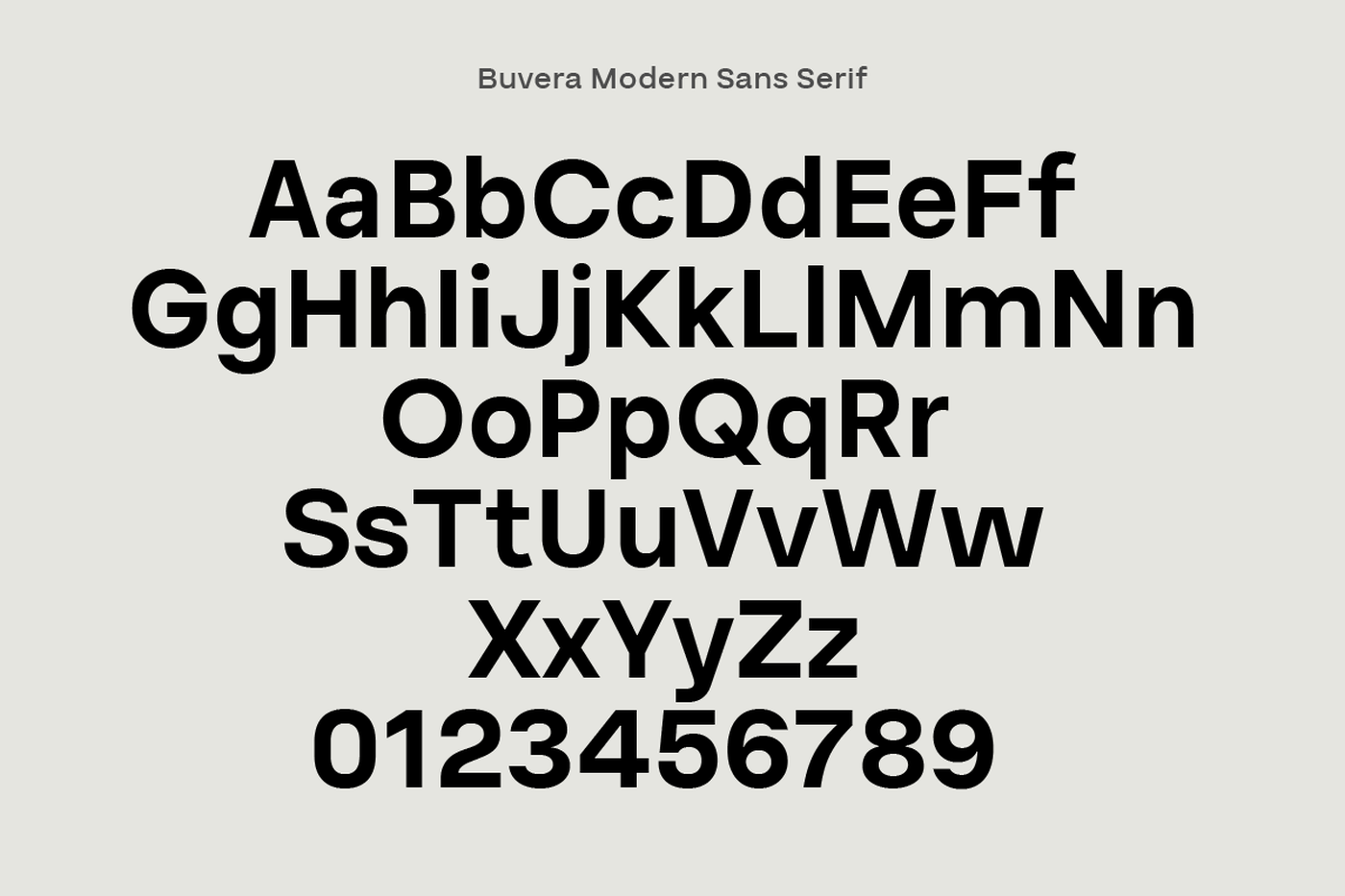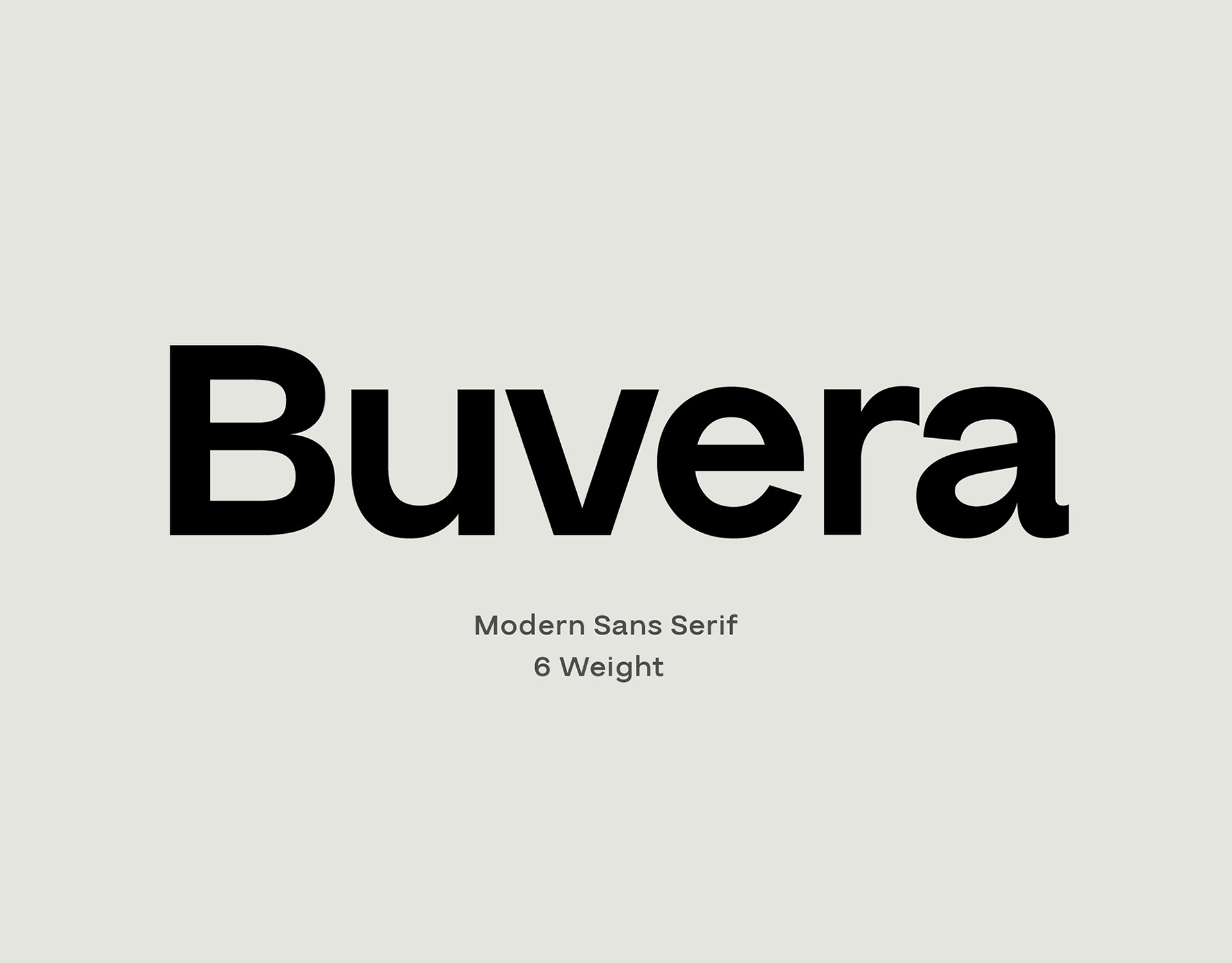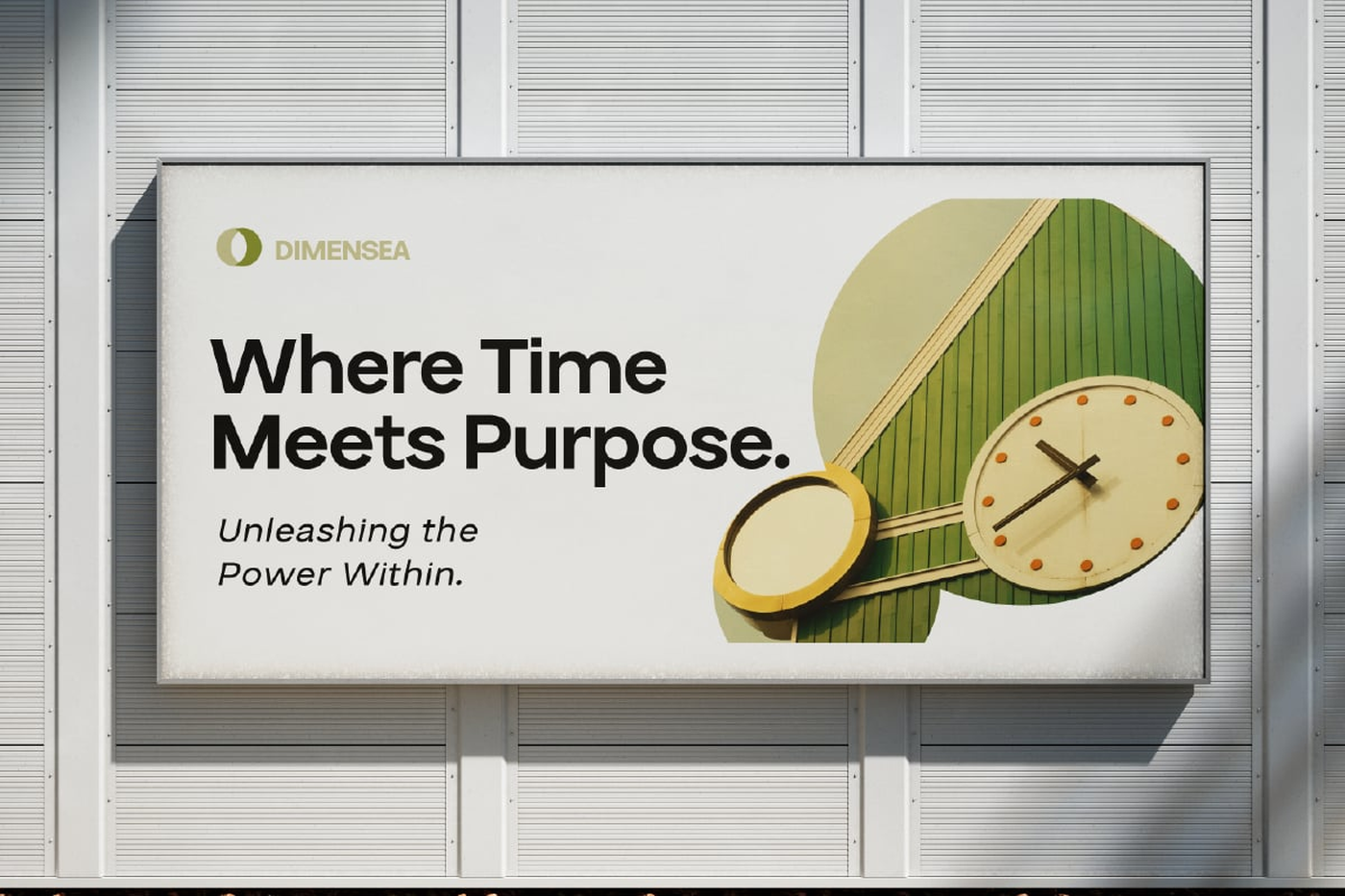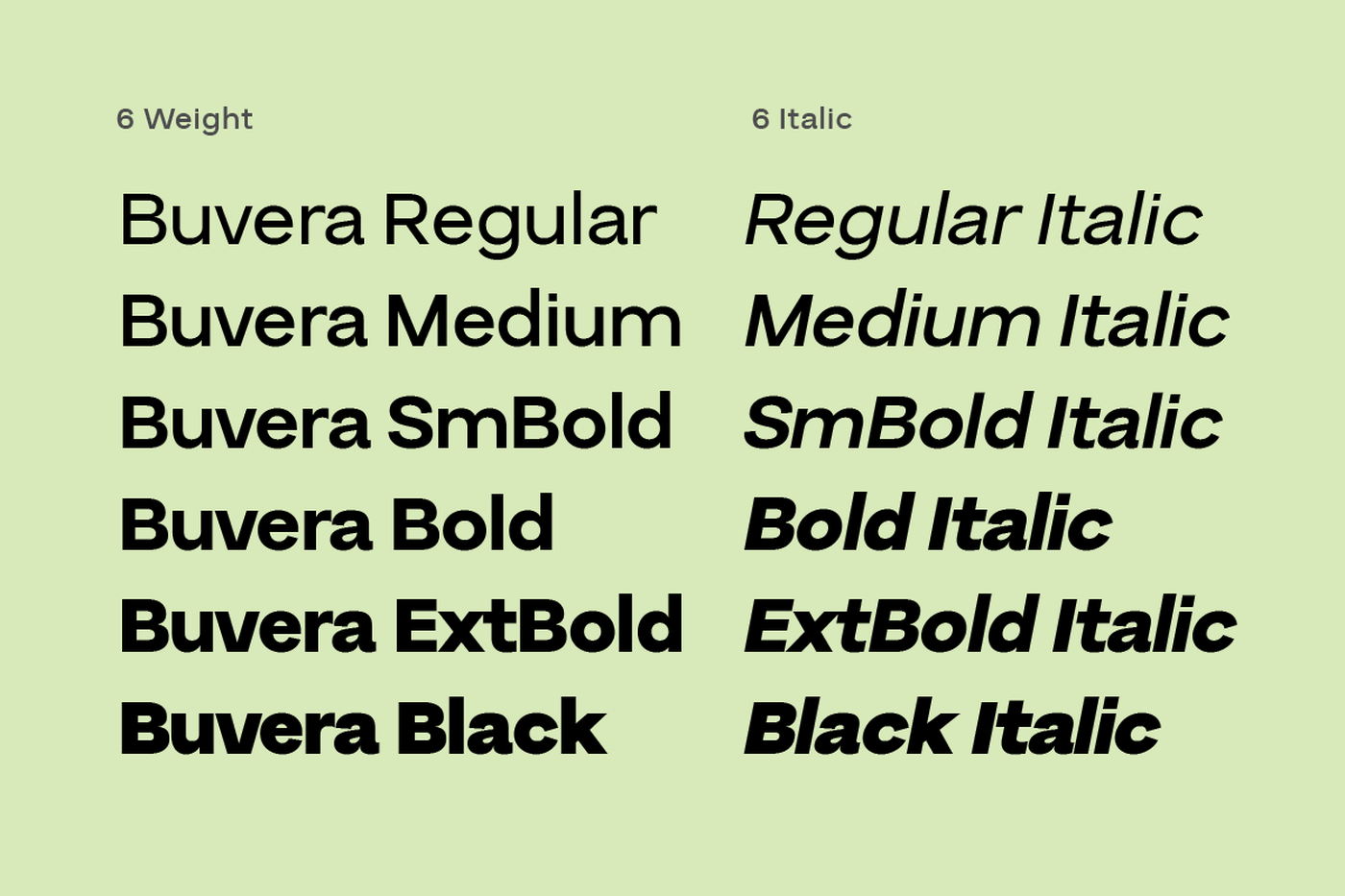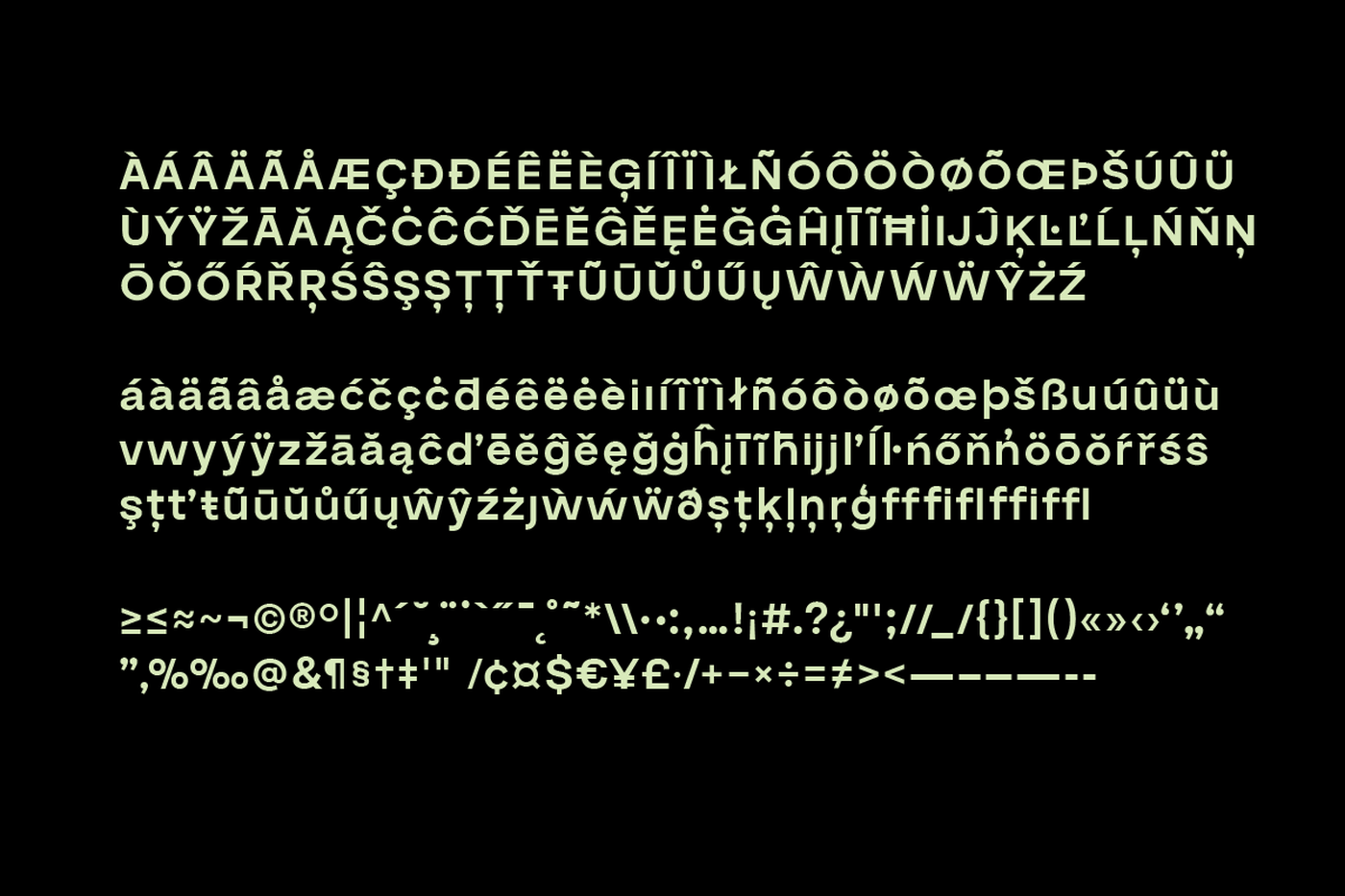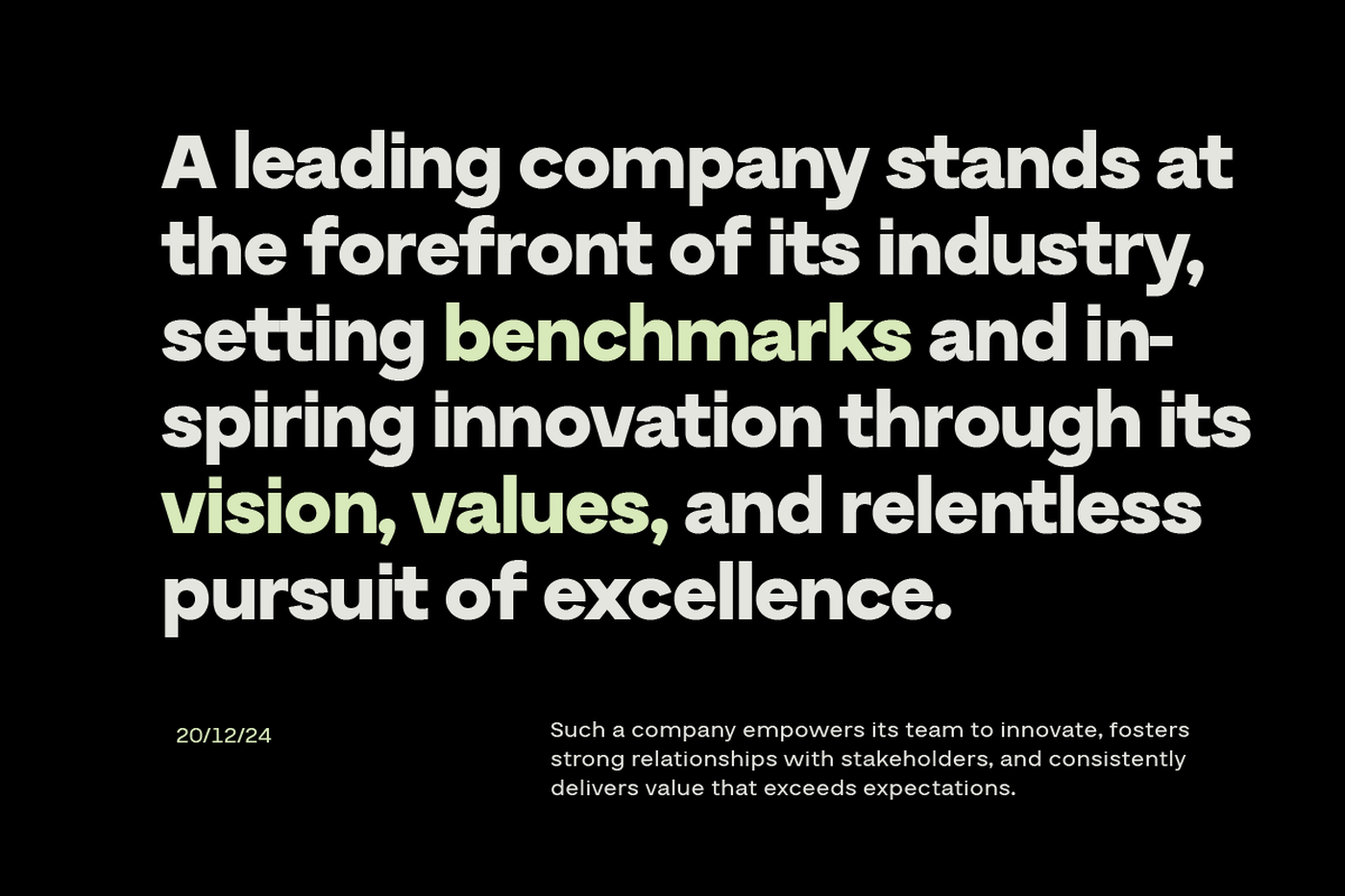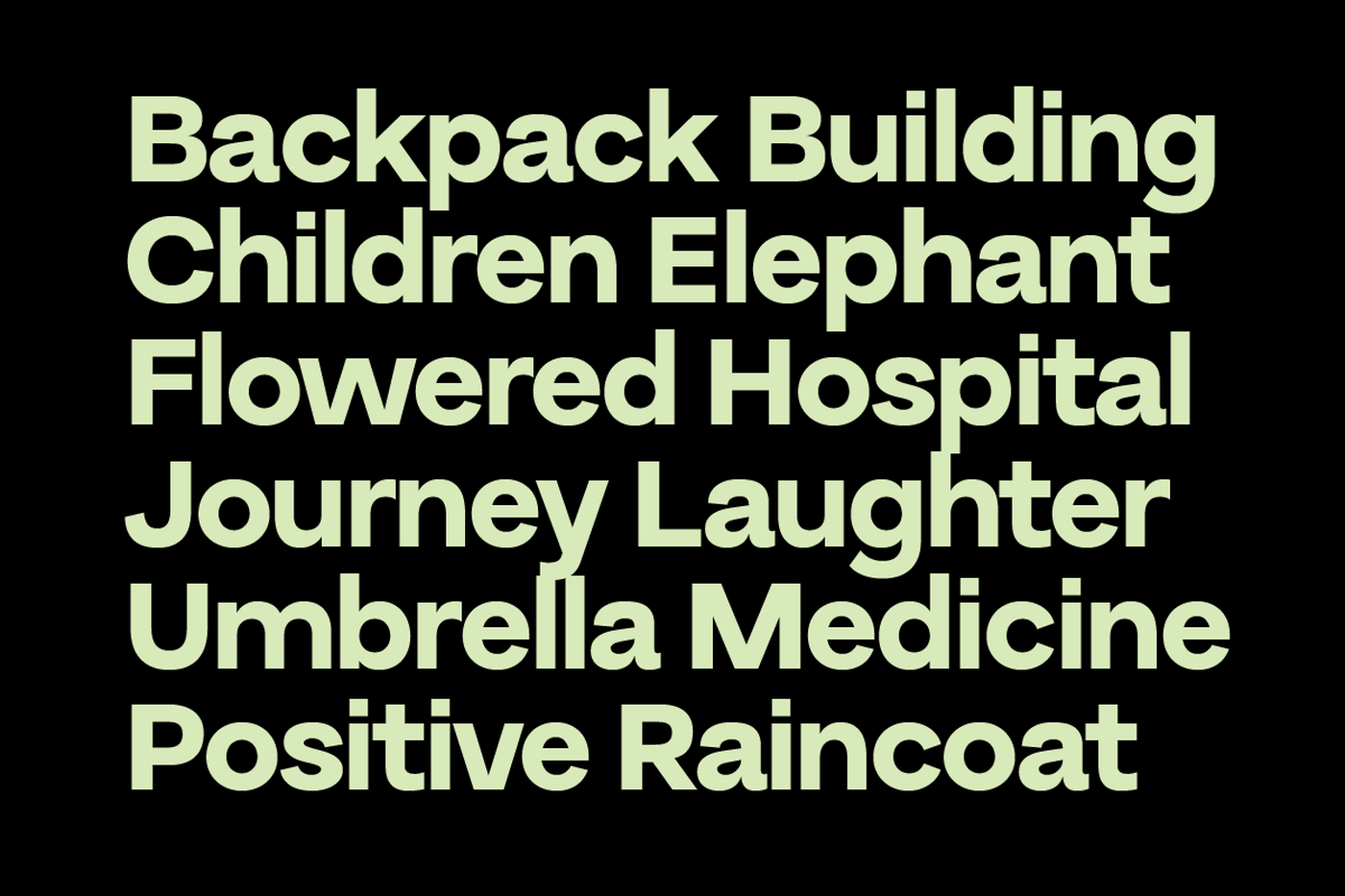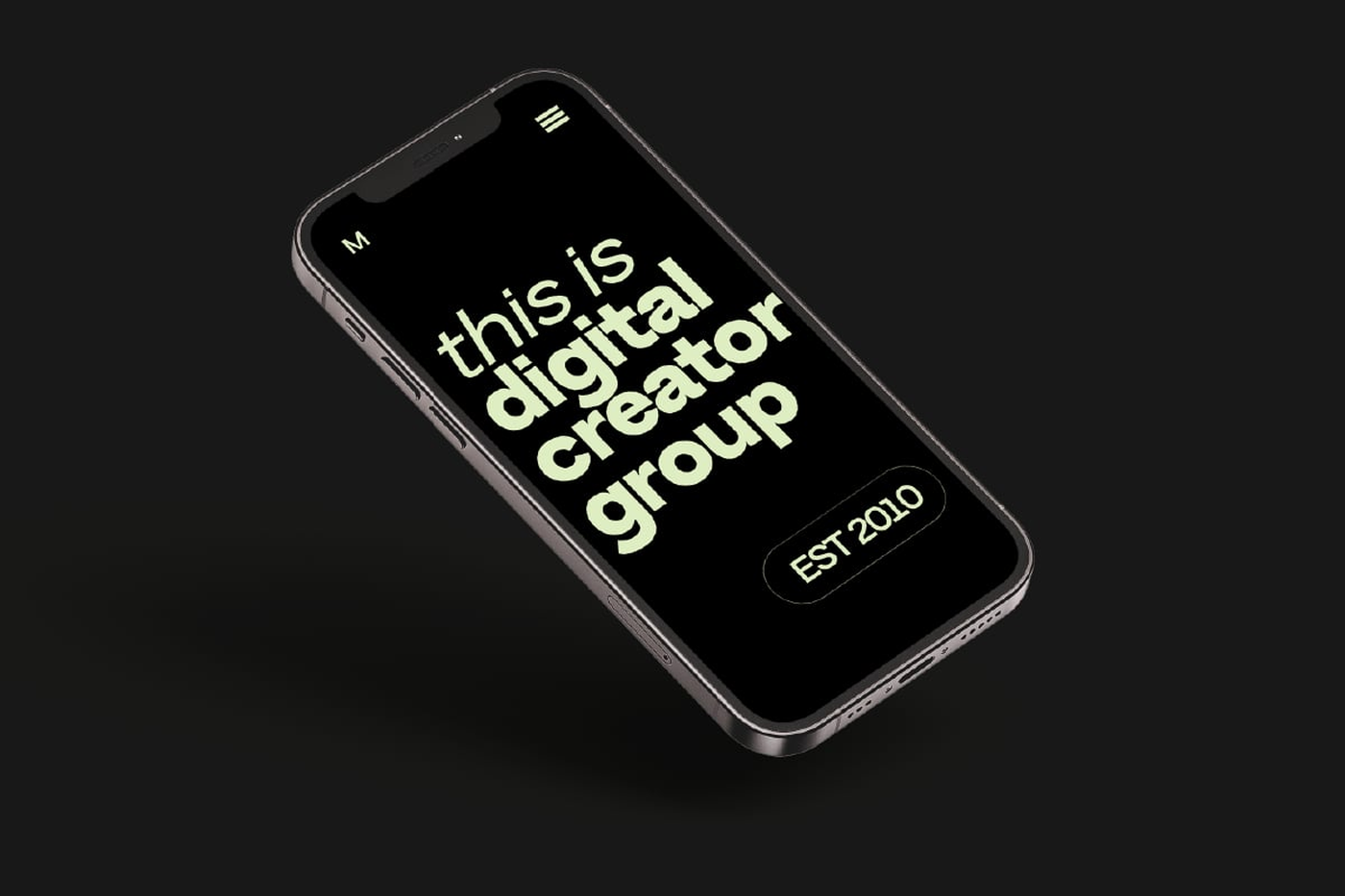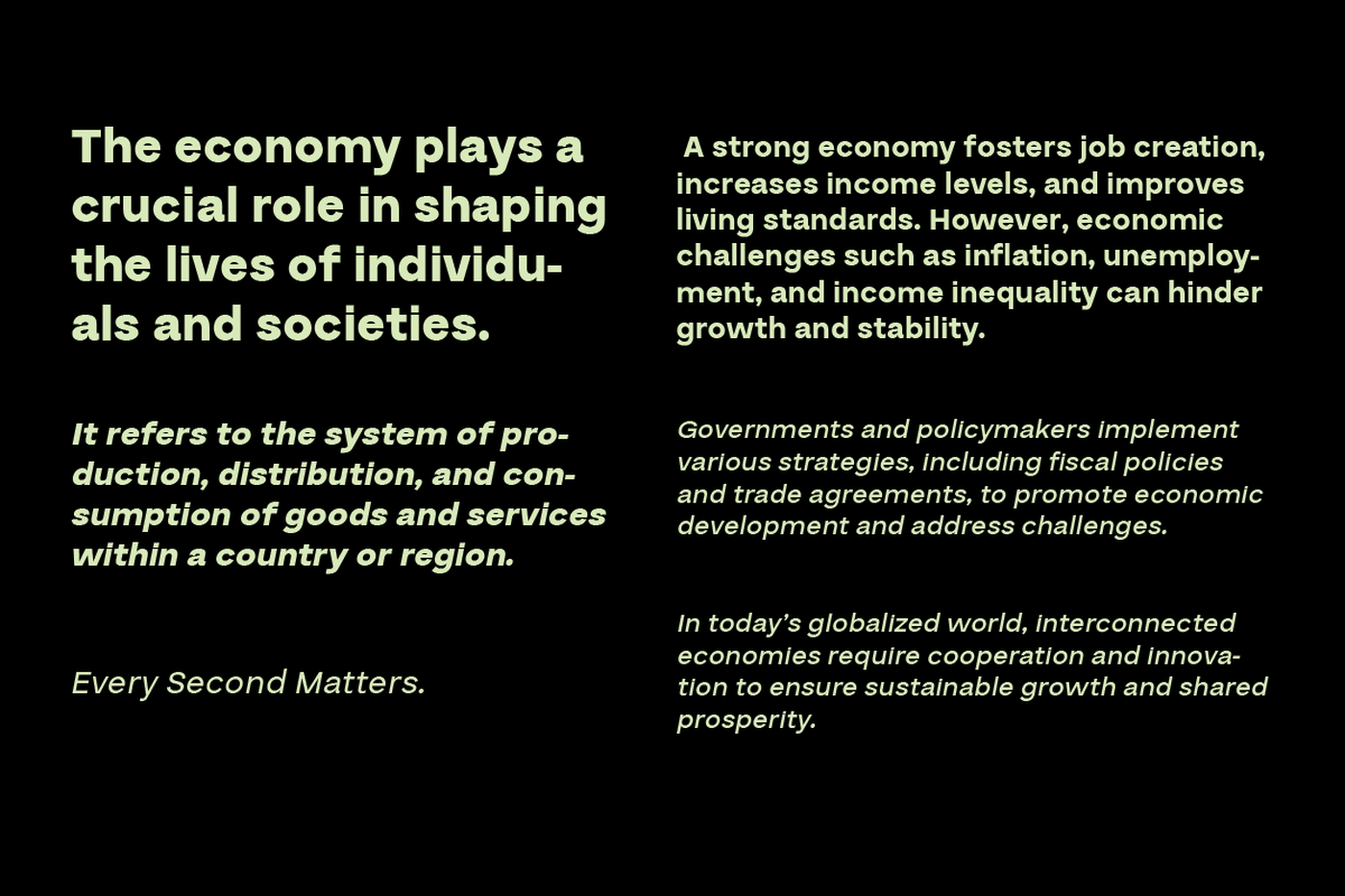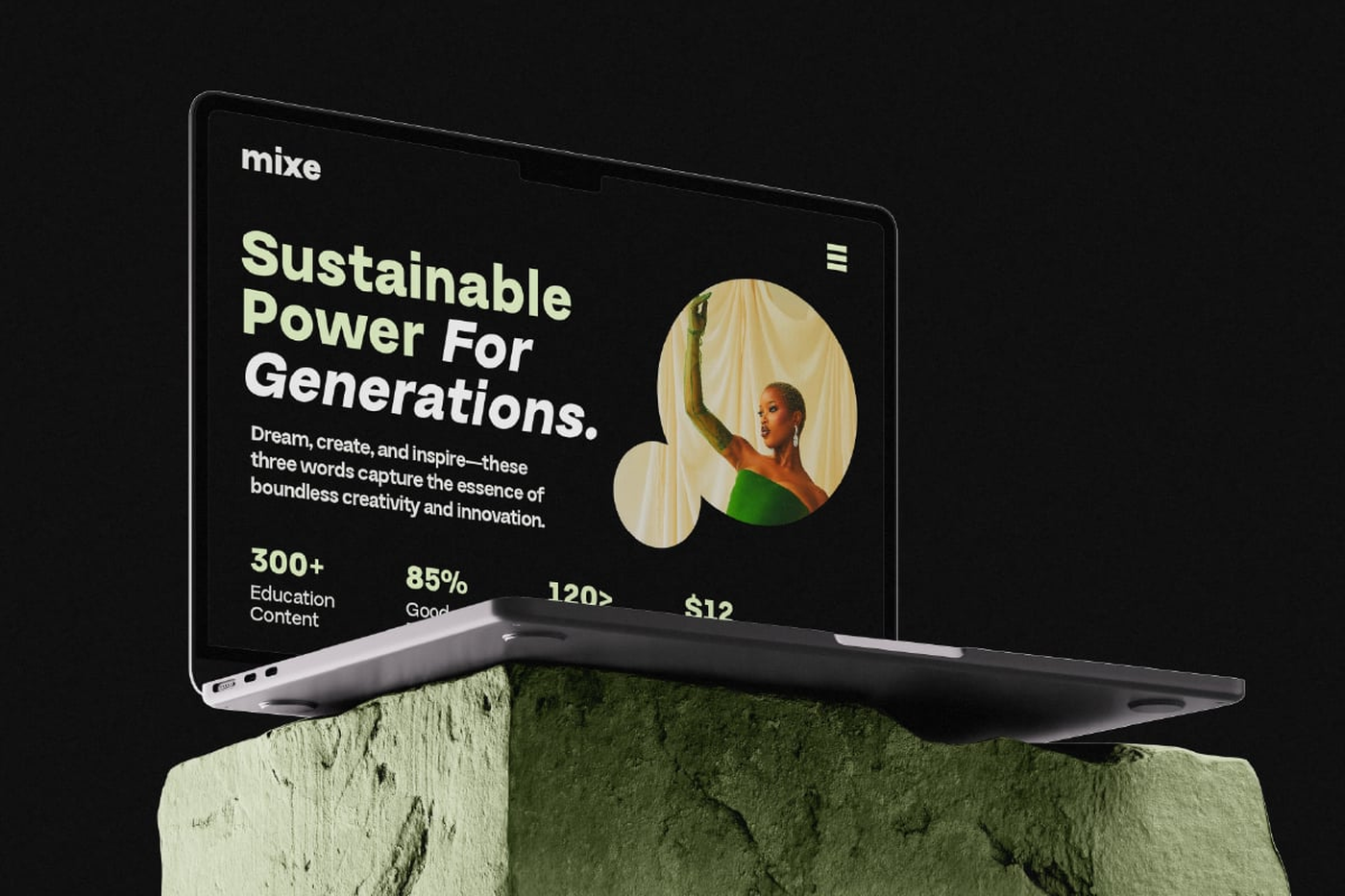
Buvera - Sans Serif Font Family
Buvera is a modern sans-serif font designed to enhance your creative projects. With 6 weights ranging from Regular to Black, and 6 matching italic styles, Buvera strikes the perfect balance between boldness and elegance. Perfect for eye-catching headlines, clean branding, web design, and more.
Font: Buvera